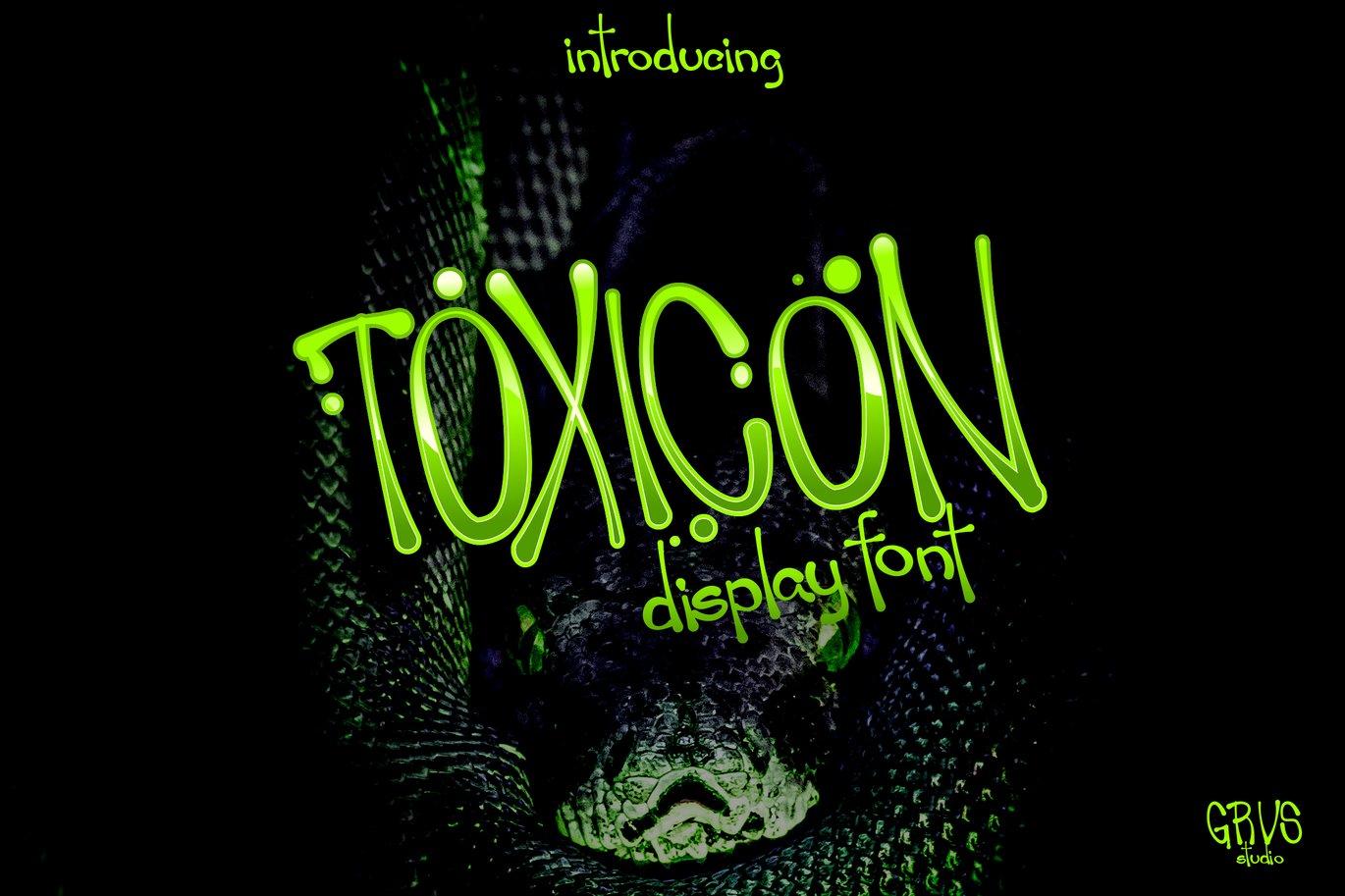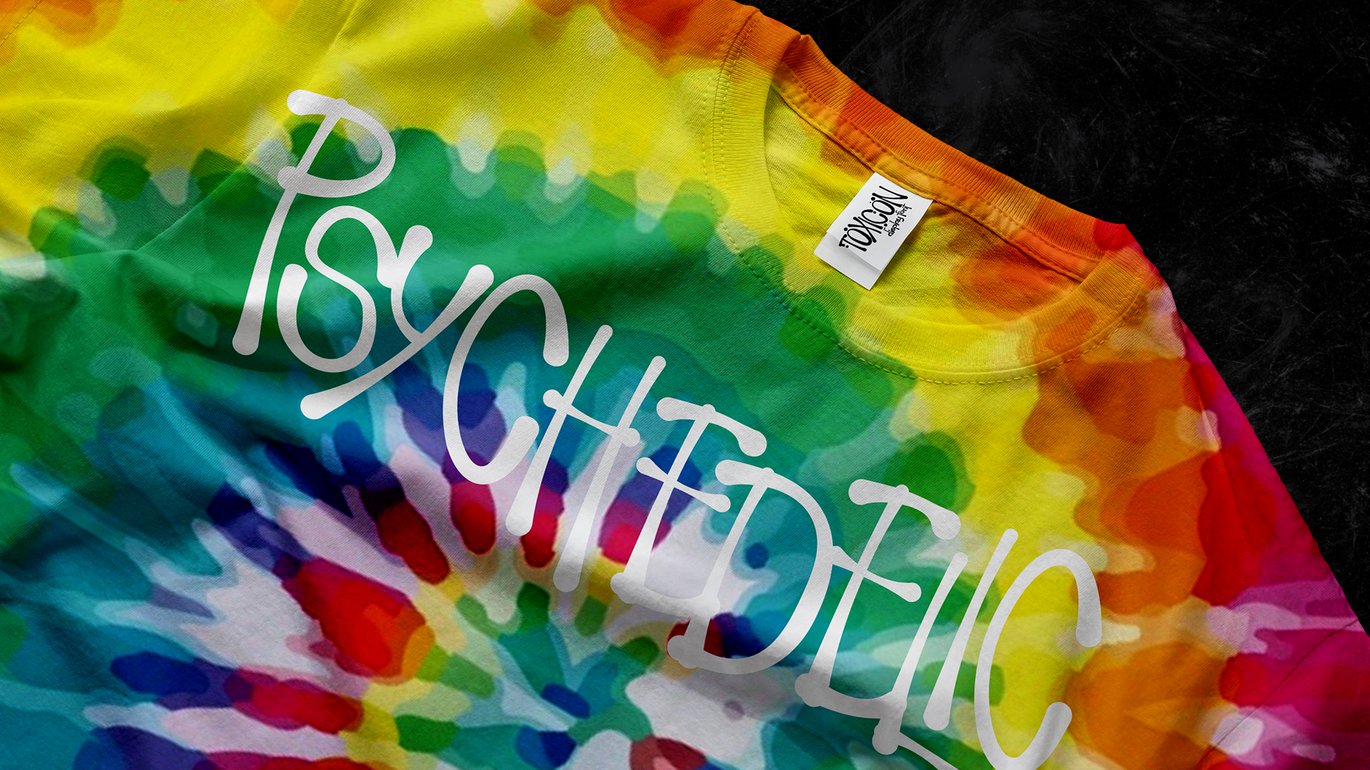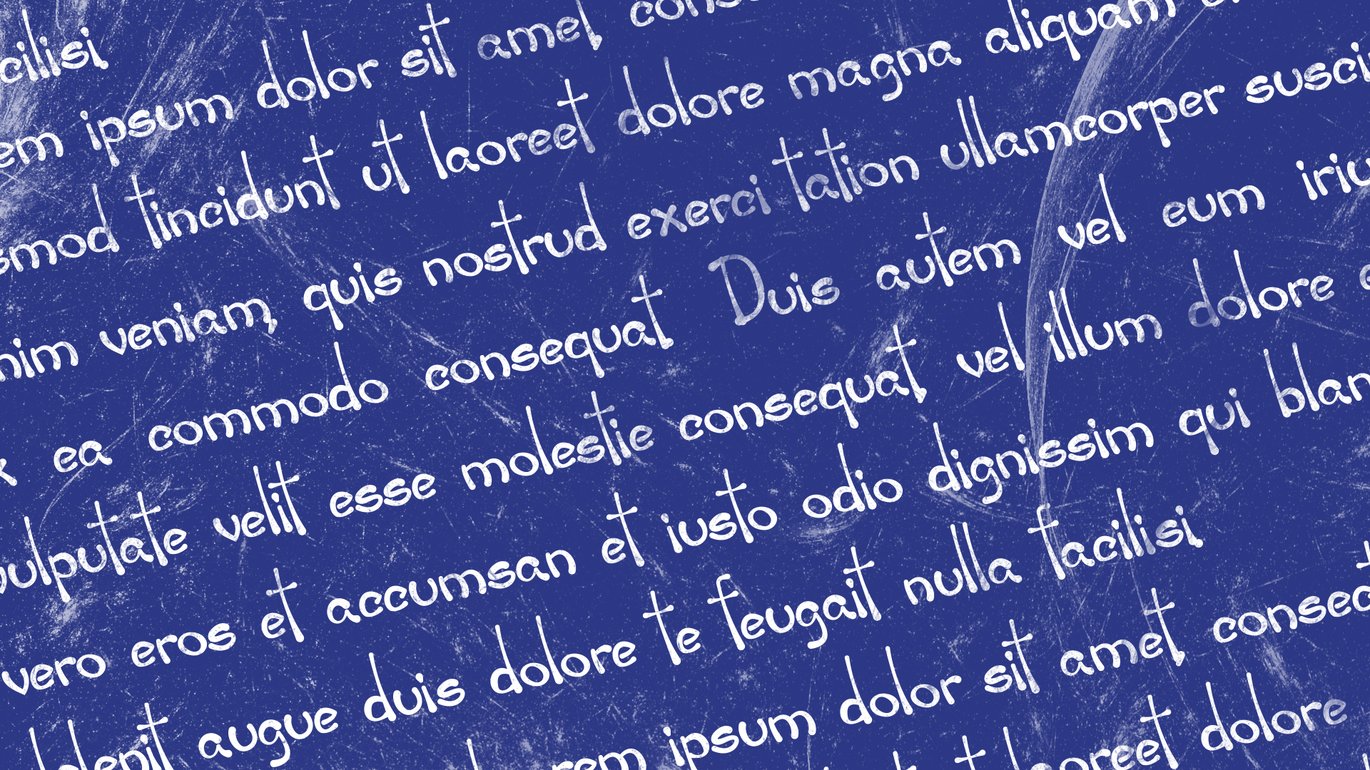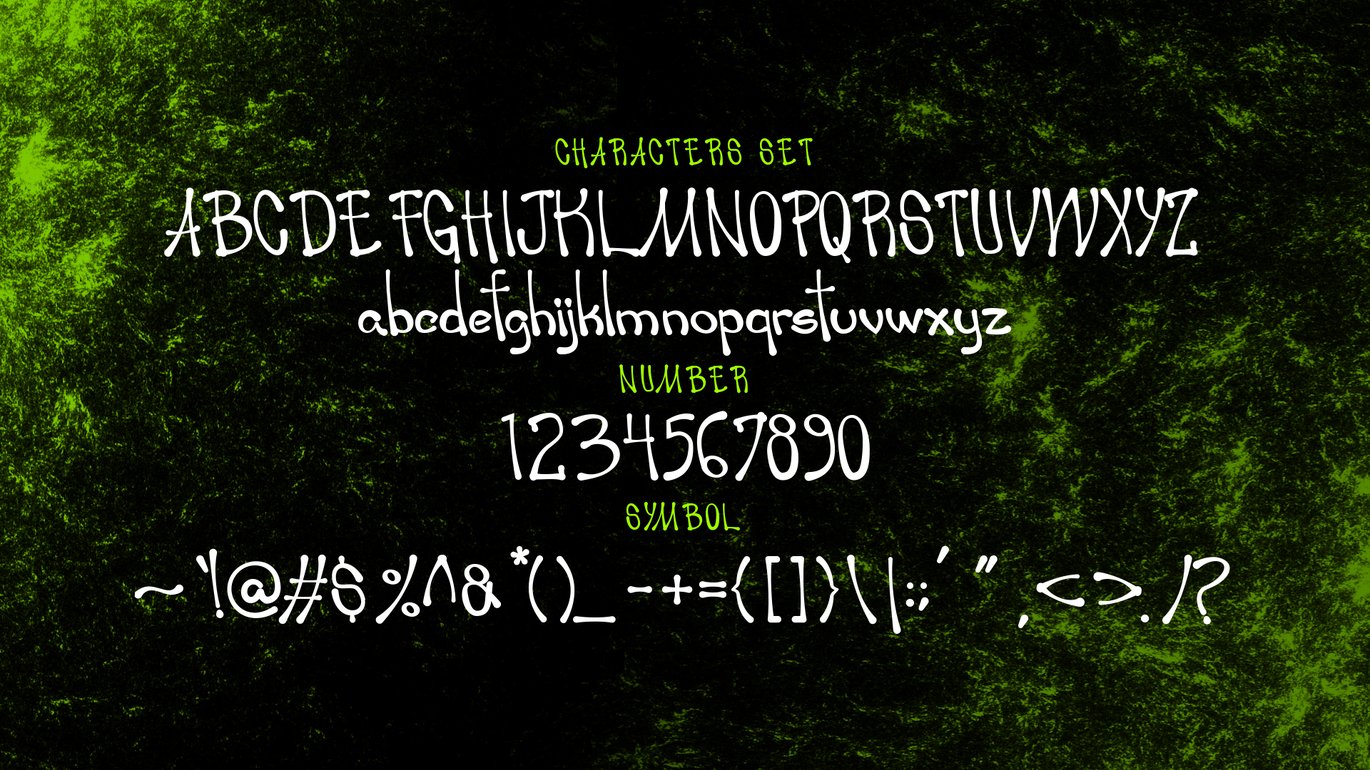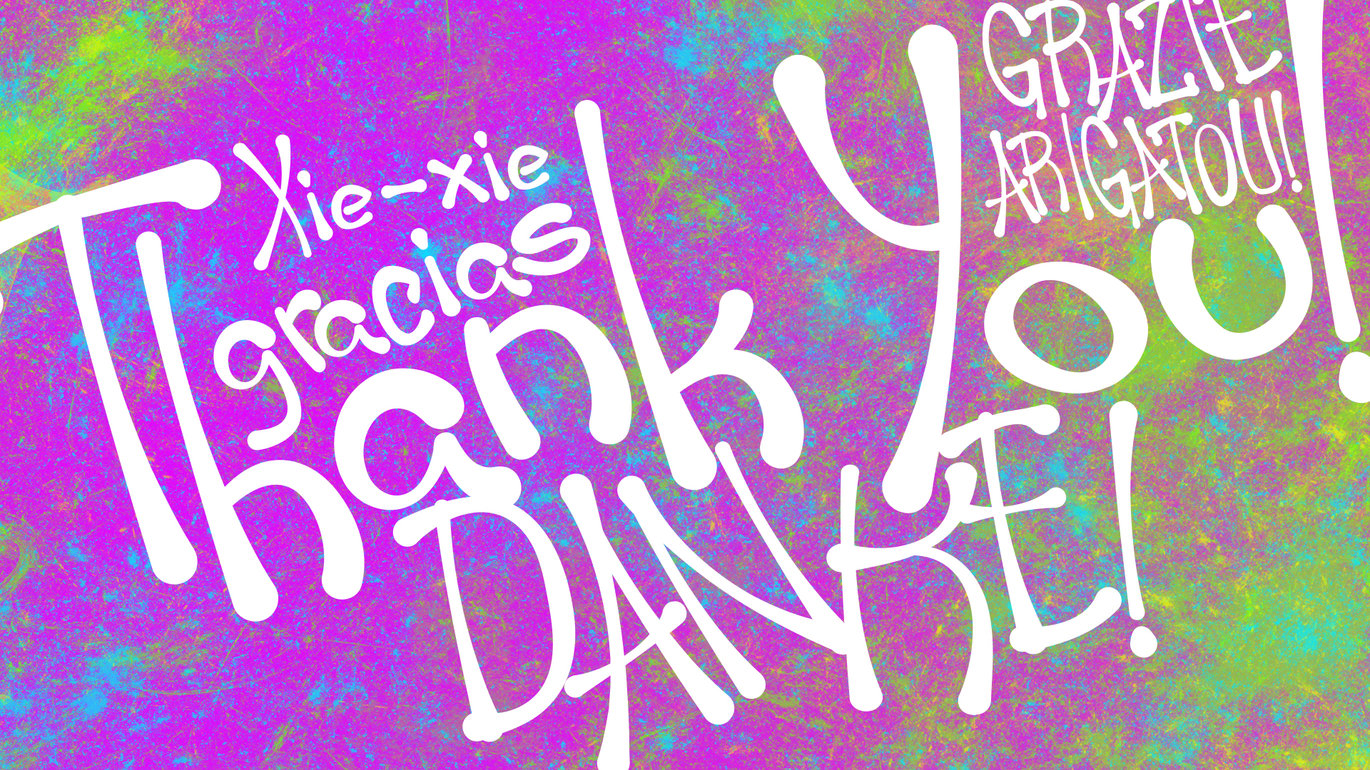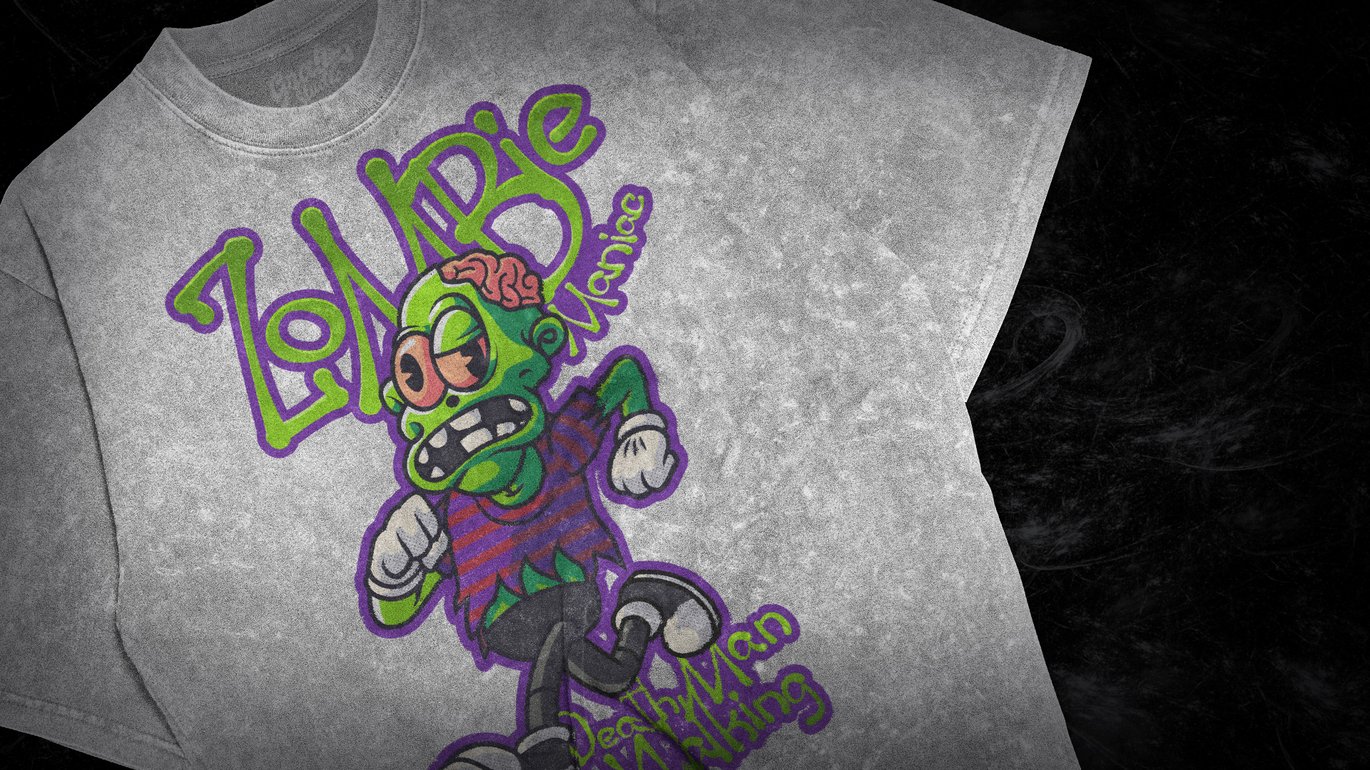
Toxicon Font
GRVS Toxicon Font, is our new item that is suitable for your team logo, or community logo with Psychedelix theme.
Great for Logo, Sticker, Jersey, Invitation Card, Brochures, etc.